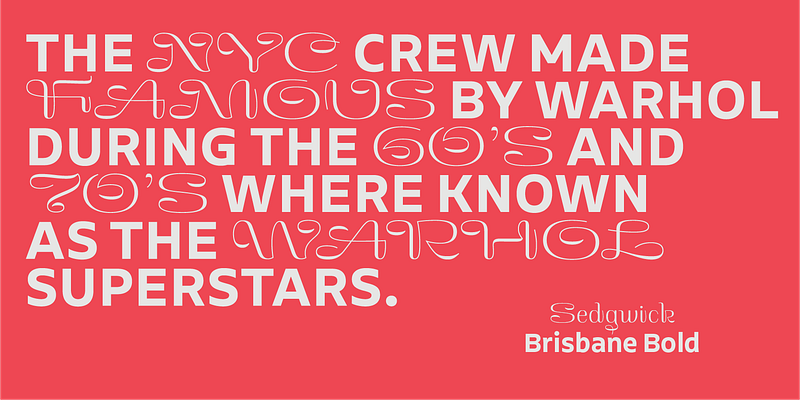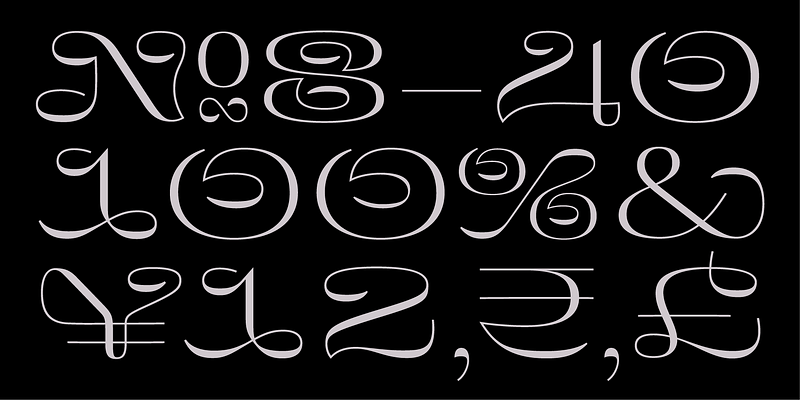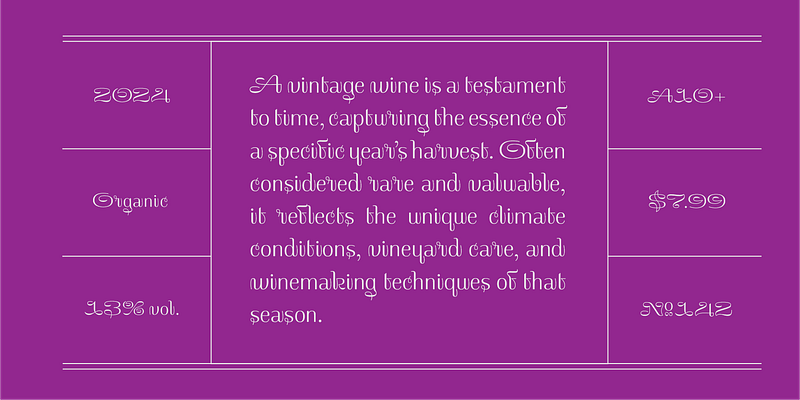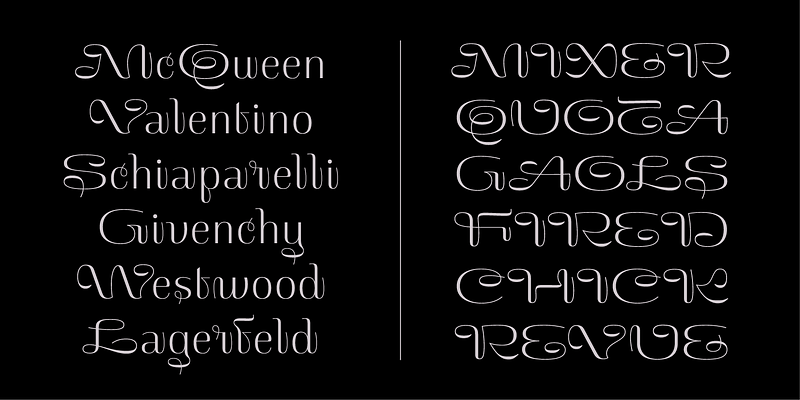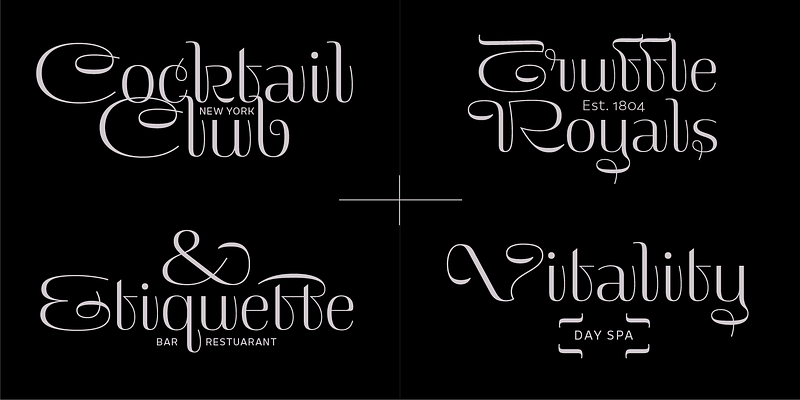
Sedgwick is a mannered, upright, unconnected script, with a touch of ’tude. An artwork in itself, it creates an eye-catching texture on the page and is perfect for short poetic texts and exquisite word-marks. While the lowercase creates the rhythm—the uppercase, figures, and punctuation offer unique and unexpected forms allowing you to add visual appeal to your story.
Sedgwick’s forms were inspired by the structure and stroke of Nieuw Javaansch No.1, Troy’s unreleased revival 2012, of Lettergieterij Amsterdam’s 1909 typeface, and the unique form and texture of the civilité types of the 15th and 16th centuries. The name ‘Sedgwick’ is inspired by Warhol’s muse—Edie Sedgwick—the factory girl with timeless charm and charisma.